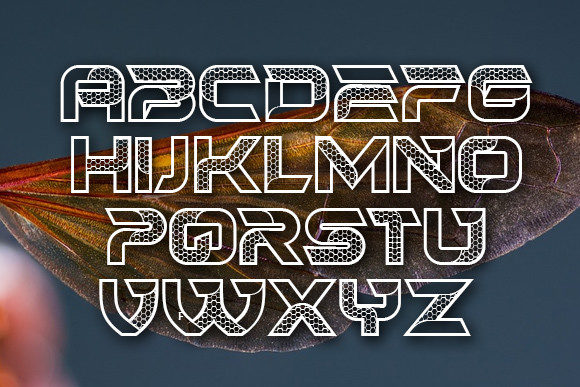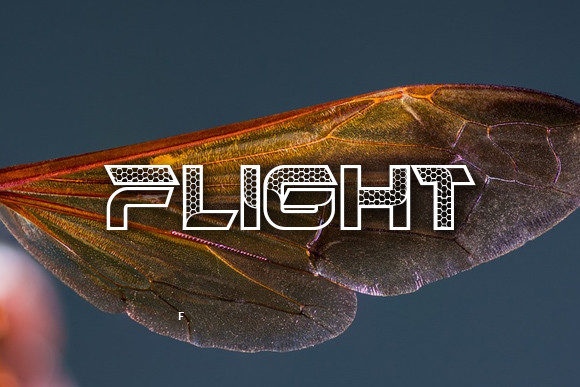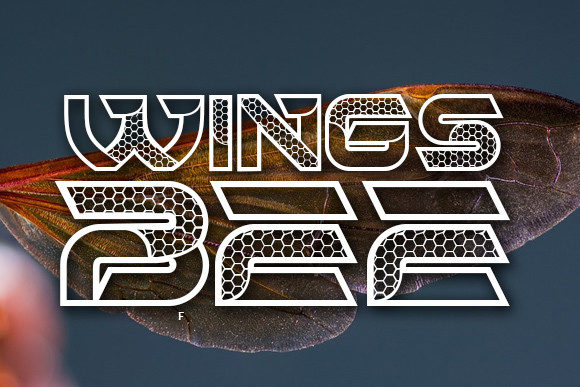
Introduction to Hornets Font
Have you ever been working on a creative project, pouring your heart and soul into it, only to realize that the perfect font is missing? That’s where the Hornets Font comes in – a game-changing, futuristic design resource that will elevate your work to the next level.
With its bold and sleek aesthetic, the Hornets Font is the perfect addition to any design project. Whether you’re working on a futuristic sci-fi concept or a cutting-edge tech startup, this high-quality font will give your design the edge it needs to stand out. And the best part? It’s available for free download, making it an accessible design resource for creatives of all levels.
Key Features of Hornets Font
- High-quality, professional font suitable for creative projects, including logos, branding, and marketing materials.
- Features a transparent background, allowing for easy customization and versatility in design applications.
- Includes a range of unique characters, including ligatures and swashes, to add a touch of sophistication to any creative project.
Honest Review: Hornets Font
I recently had the chance to work with the Hornets Font for a creative project and I must say, it’s been a pleasant experience. The font is a high-quality design resource that can add a unique touch to your designs.
Here are some things that work well with the Hornets Font:
- The transparent background allows for seamless integration into any design, whether it’s a logo, social media graphic, or web design.
- The font is highly customizable, giving you the freedom to adjust the size, color, and style to fit your creative vision.
Overall, I’m impressed with the Hornets Font and would definitely recommend it for creative projects where a unique, high-quality font is needed.
Experiment with different font sizes, colors, and styles to create a unique look. Use the Hornets Font in combination with other design elements to add depth and visual interest to your project.
The Hornets Font is suitable for various creative projects, including logos, branding materials, and marketing materials. Its high quality and unique style make it an excellent design resource for professionals and hobbyists alike.